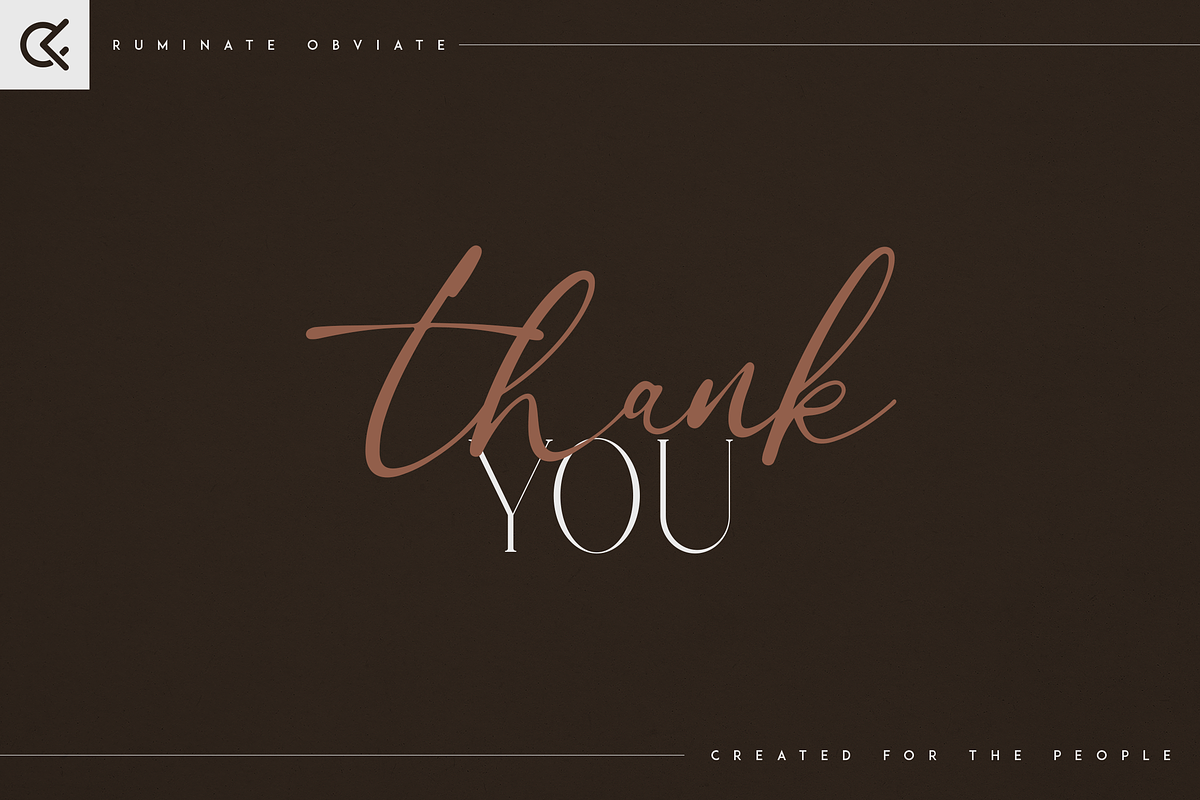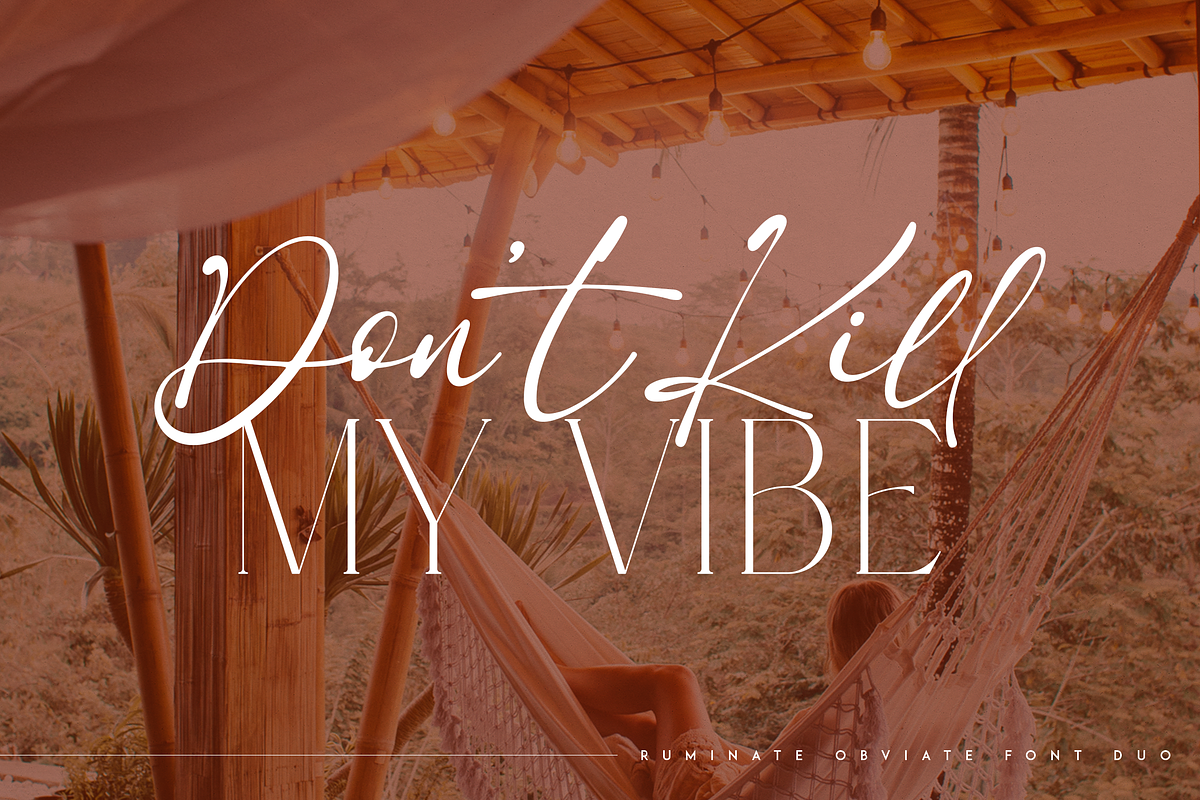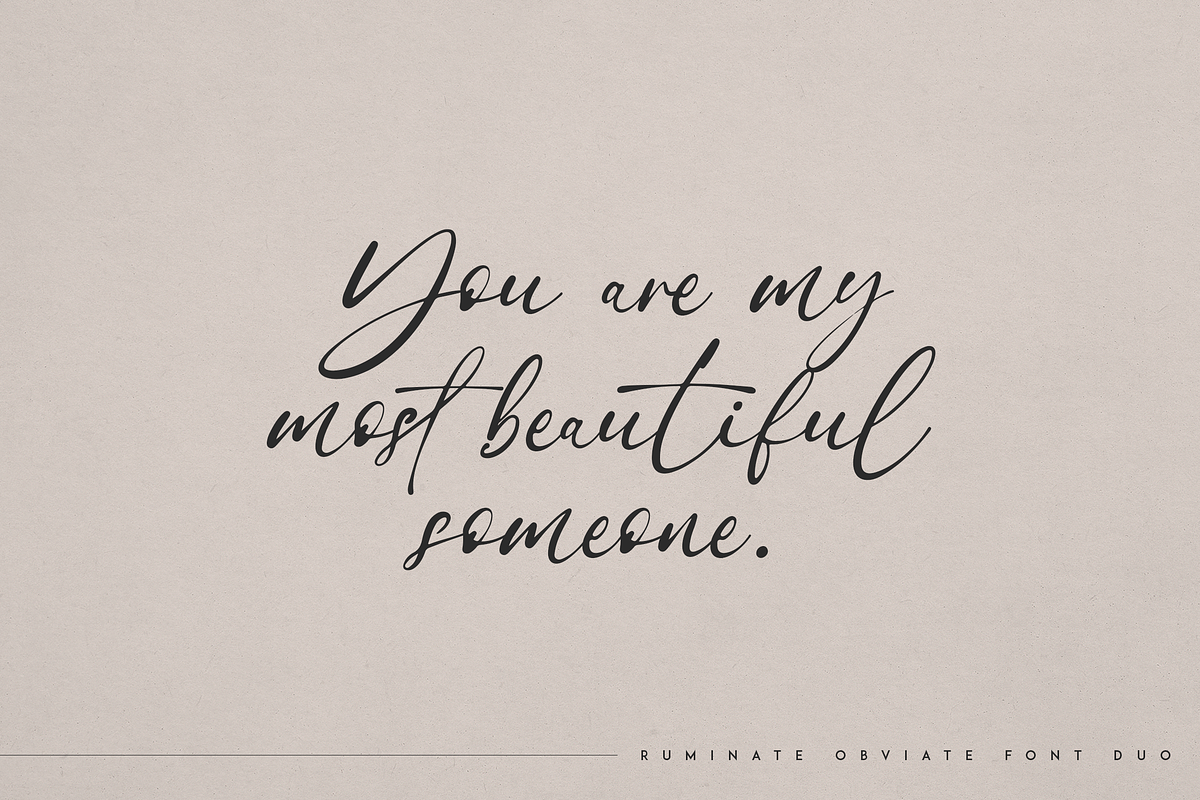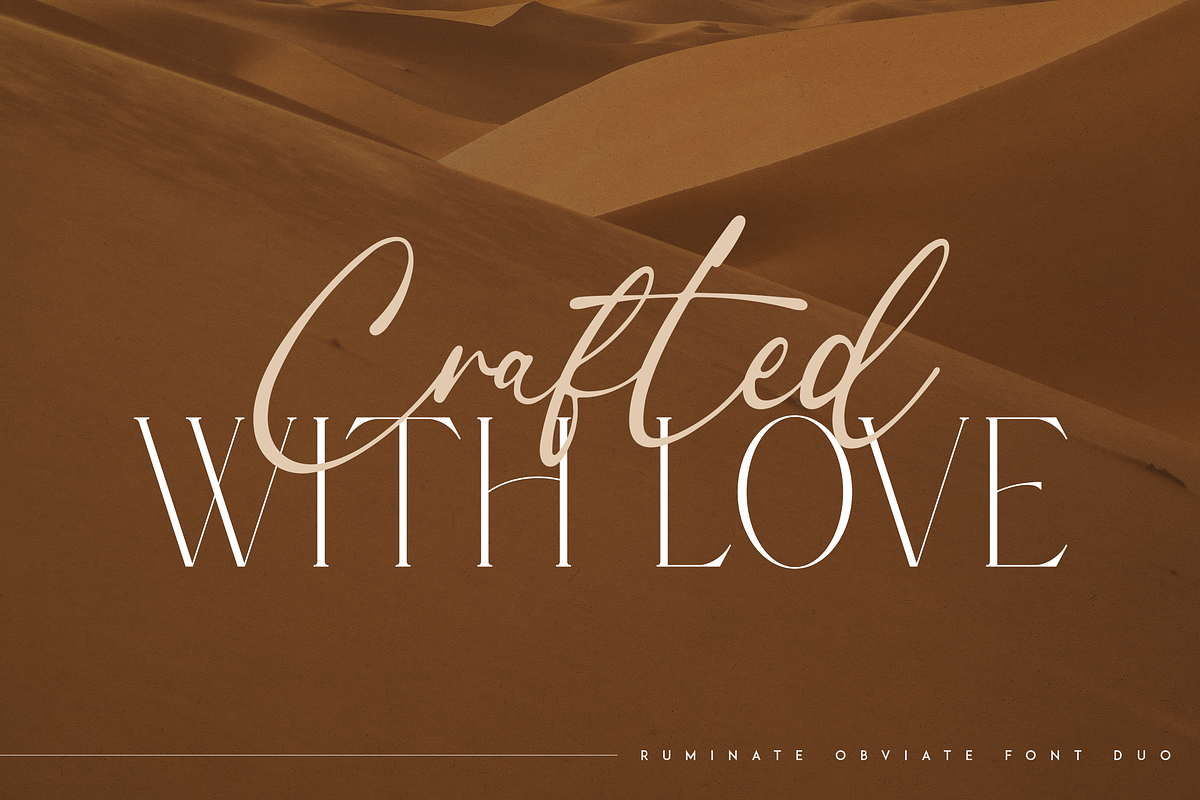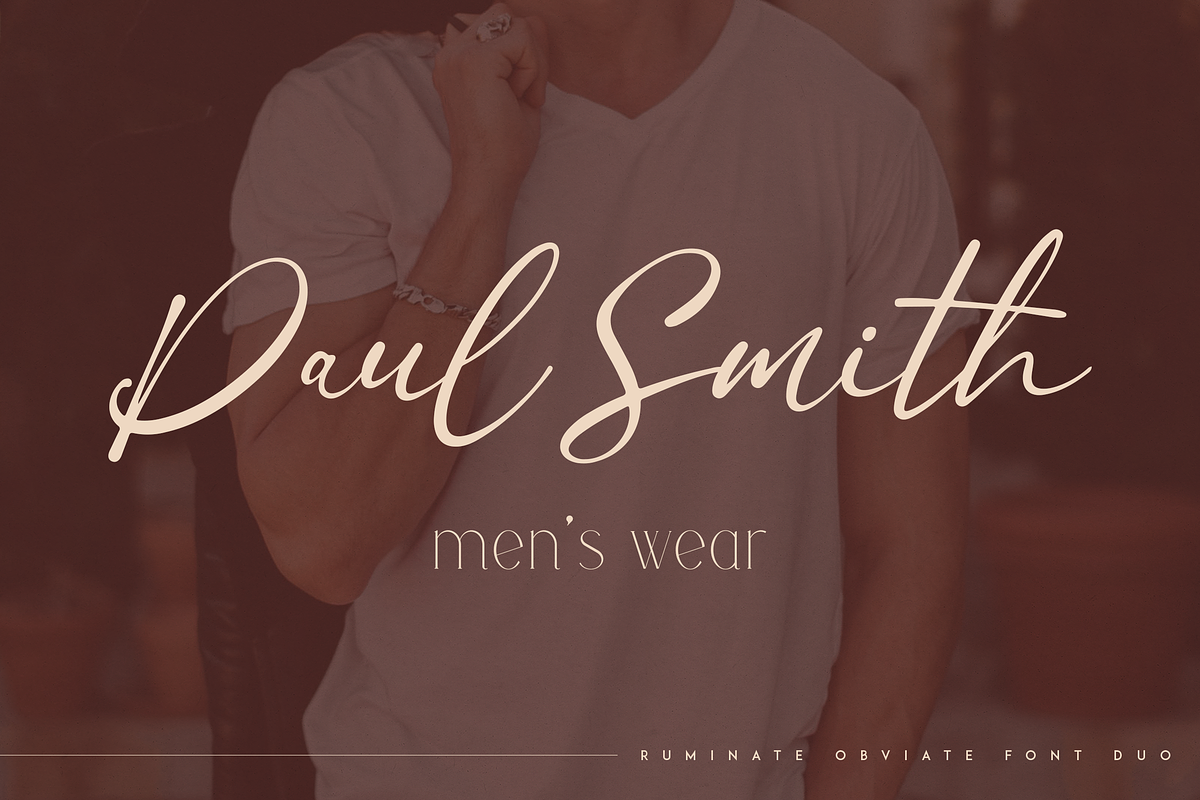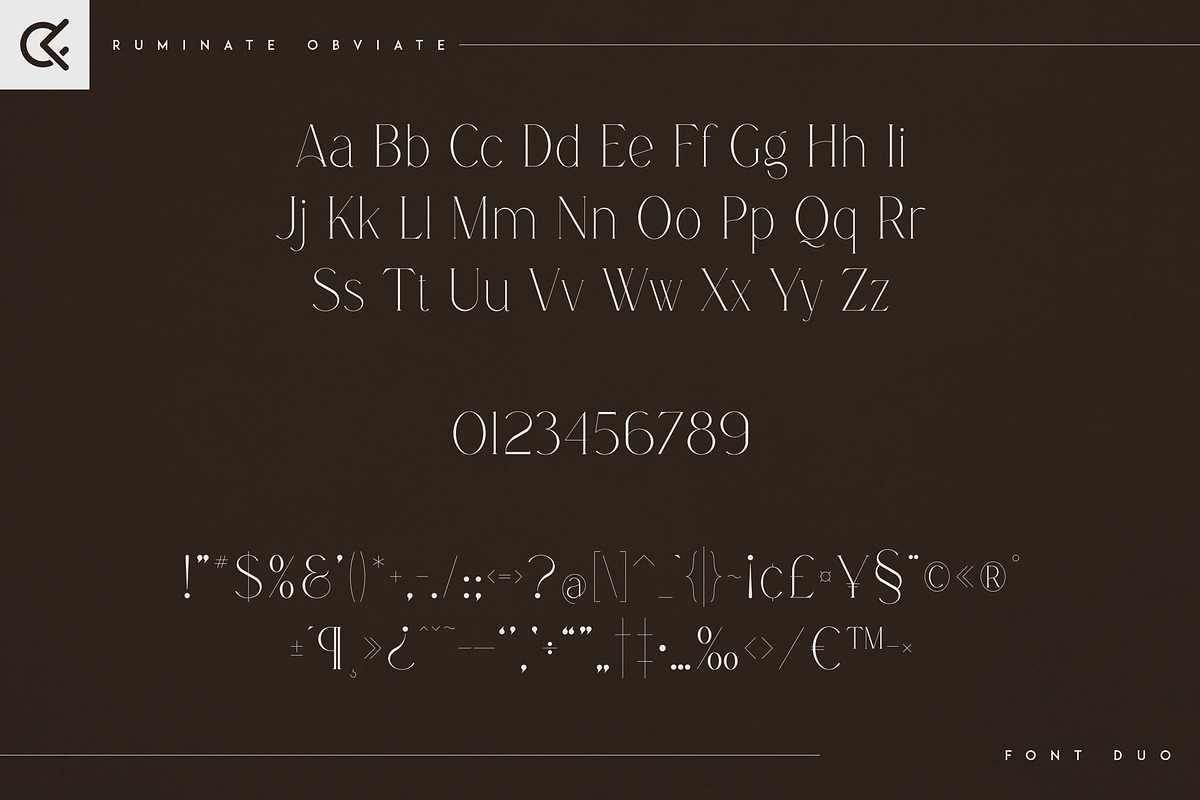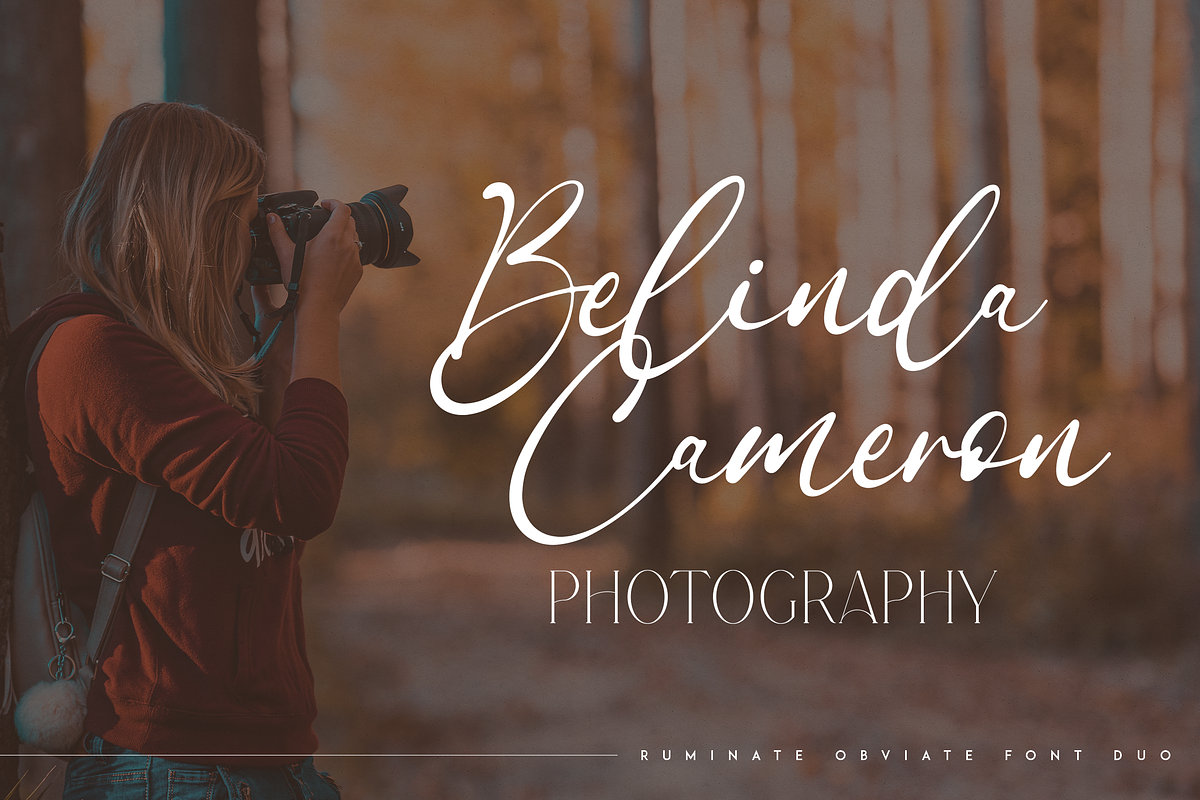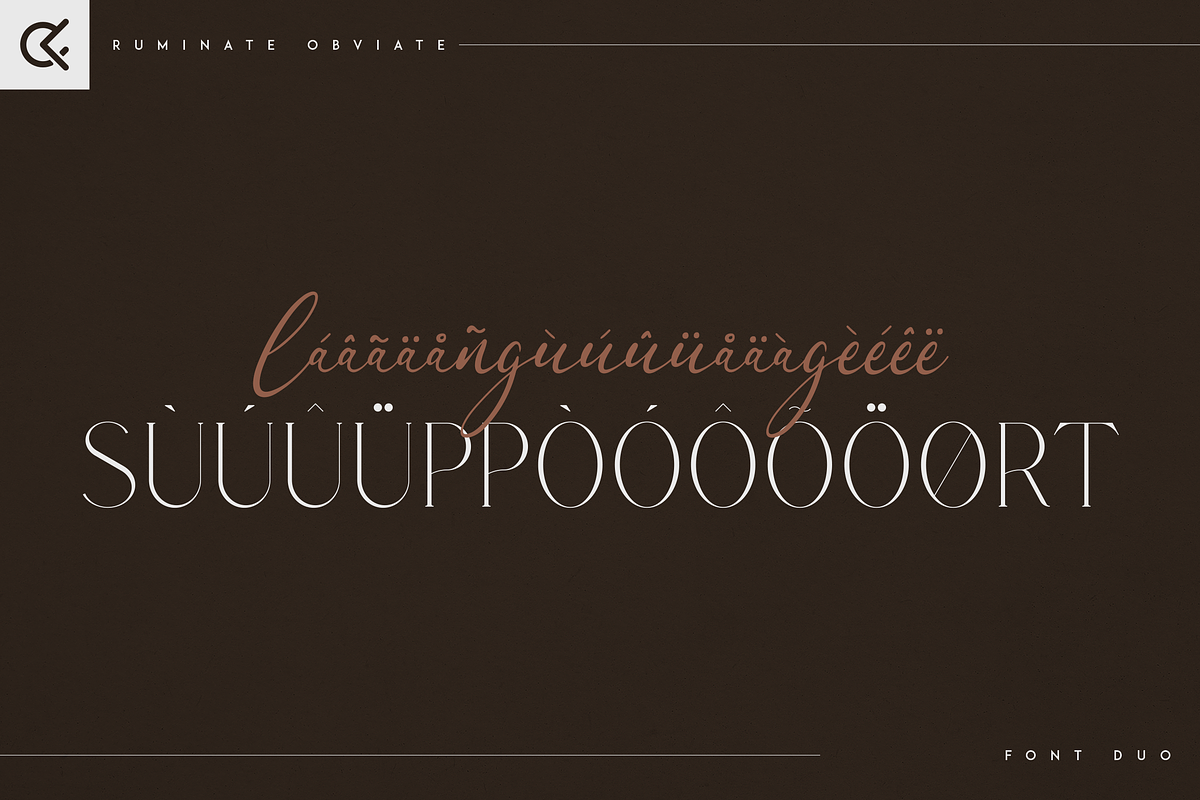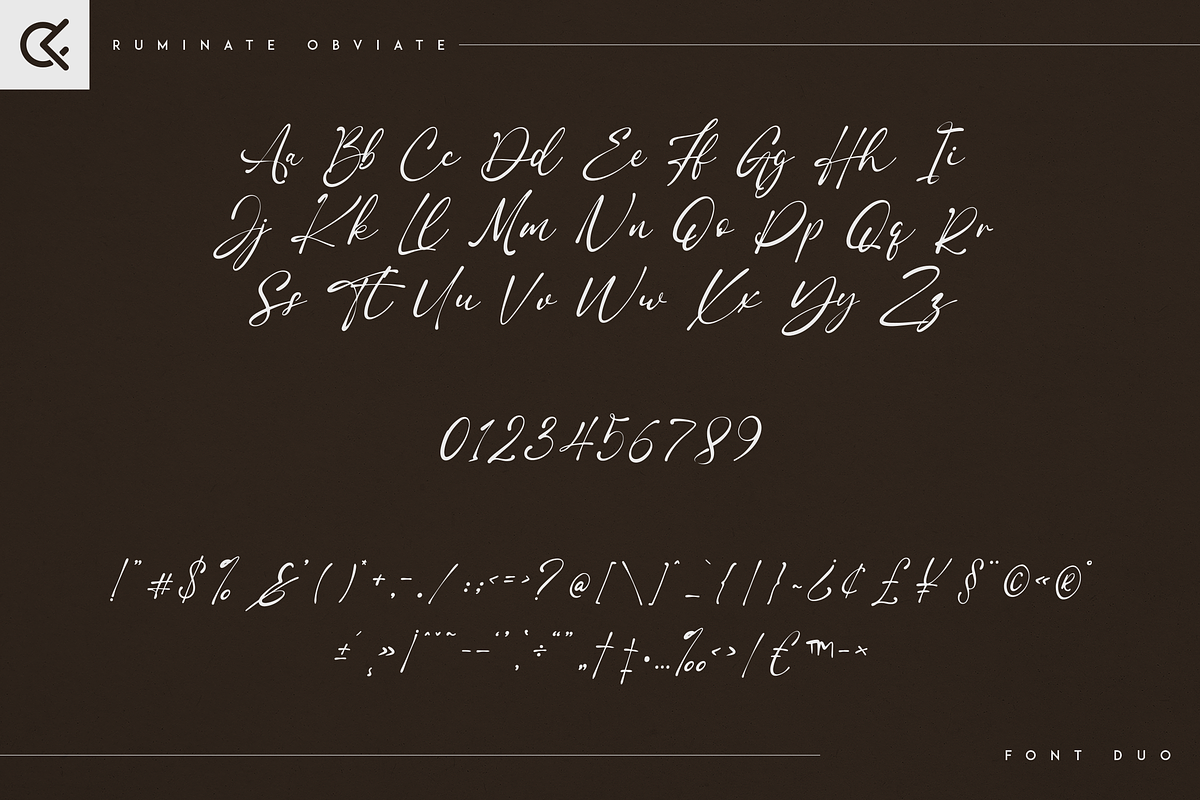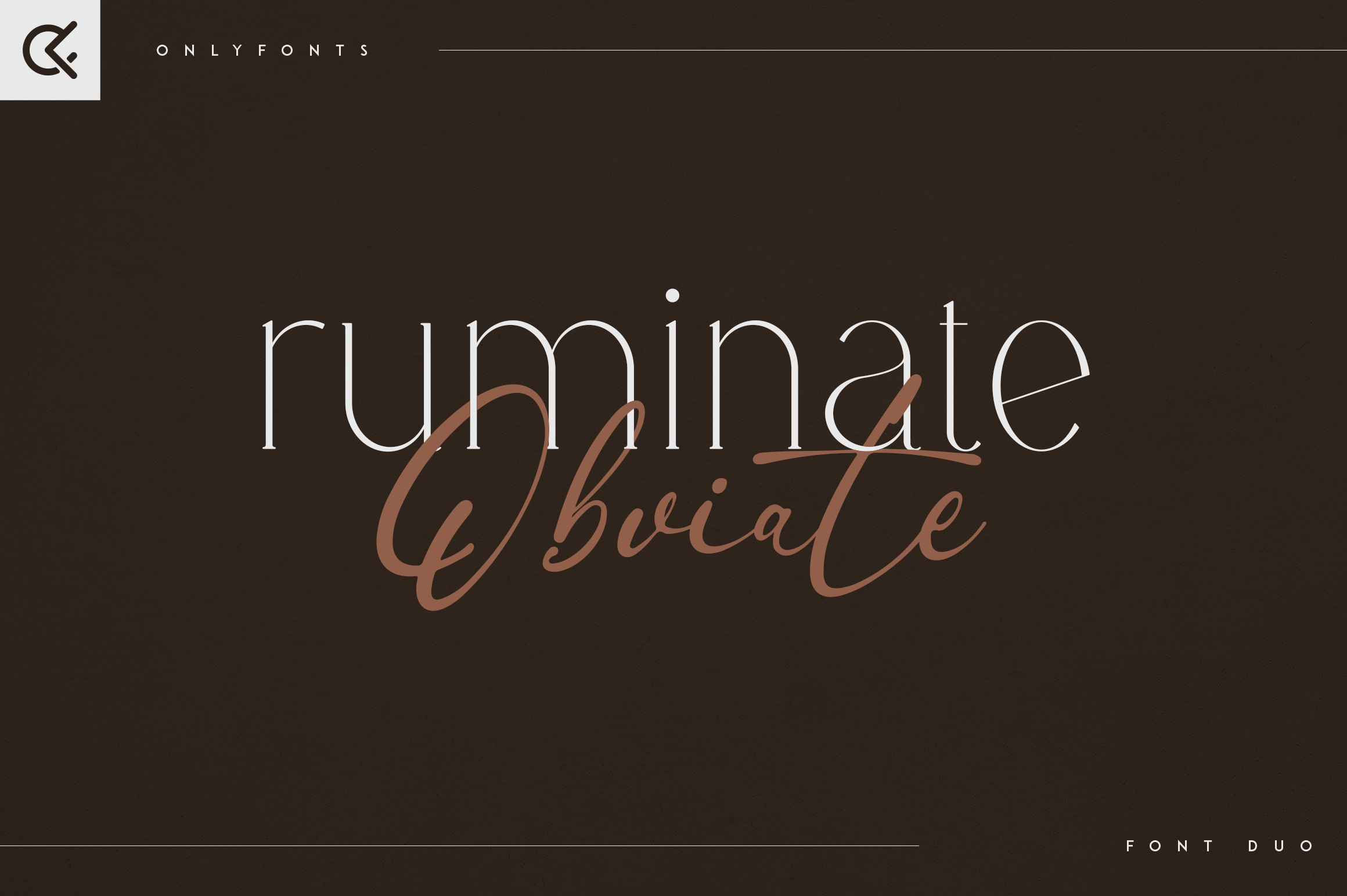
Ruminate & Obviate - modern font duo
Introducing Ruminate & Obviate - modern font duo
Ruminate & Obviate is elegant and organic typeface with multilingual support. It's a very versatile font that works great in large and small sizes.
This font duo is perfect for branding projects, home-ware designs, product packaging, magazine headers - or simply as a stylish text overlay to any background image.
- Uppercase, lowercase, numeral, punctuation & Symbol
- italic
- alternate
- Script